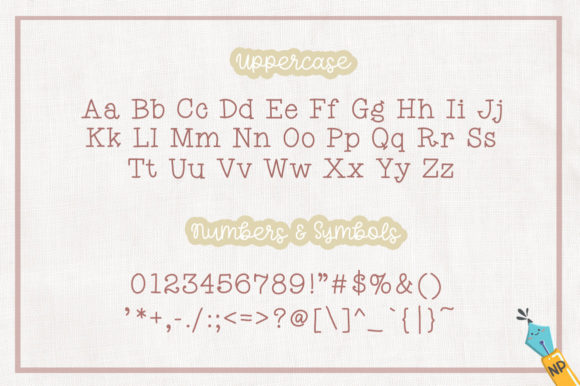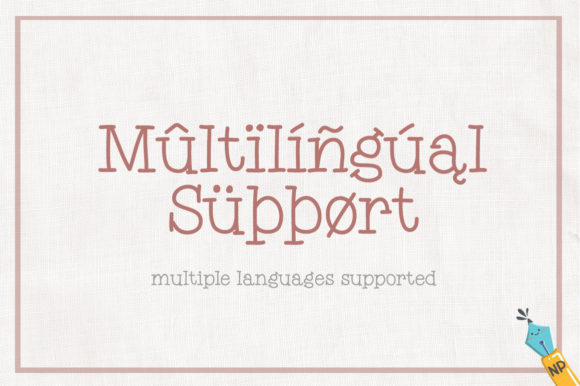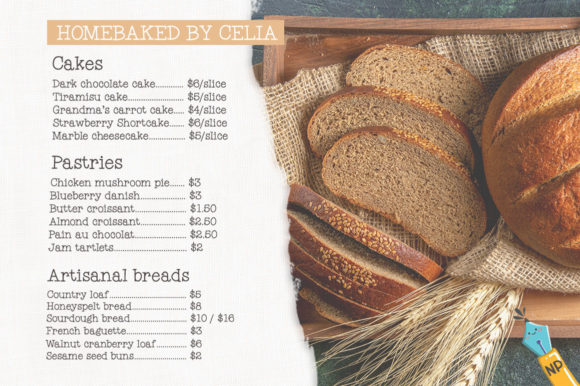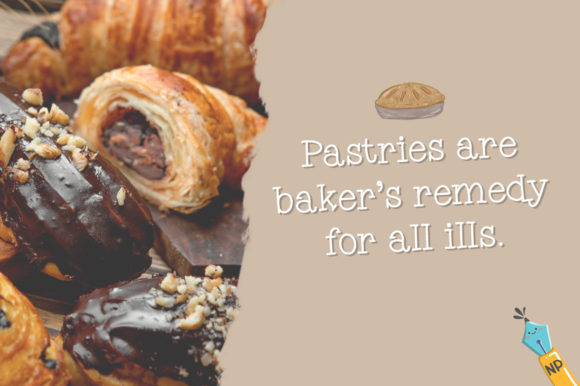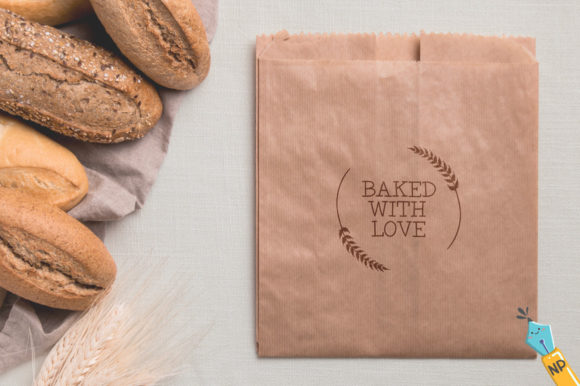
Serif Fonts Cottage Baker Font 0 153 FacebookTwitterPinterestWhatsApp COTTAGE BAKER FONT SPECIMEN Cottage Baker is a cool, thin and dainty slab serif font. Expertly designed to make your creation look out of this world, this font will look gorgeous on a variety of ideas.